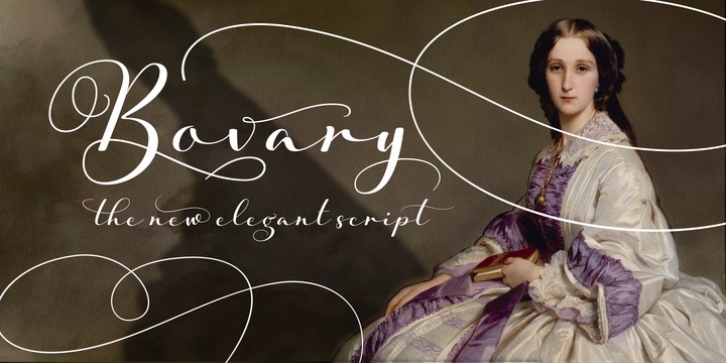
Publisher: Eurotypo
Bovary was designed by Carine de Wandeleer and published by Eurotypo. Bovary contains 1 style.
Bovary is an elegant, stylized and expressive script font inspired by those beautiful calligraphies of yesteryear, but in a modern point of view. Bovary is full of personality! When I designed it, I started from the Clauques Script. Therefore, Bovary can be perfectly combined with Clauques Sans.
Bovary includes almost 900 glyphs with many stylistic variations, swashes, ending and initial forms, catchwords and ligatures for both uppercase and lowercase, assuring almost infinite combination possibilities. In addition, the font includes a set of very useful ornaments to combine and give an ornamental aspect to the calligraphic text.
All our fonts are carefully controlled and tested in both aspects: readability and technical aspects. We deal with the kerning pairs, optimization of hinting information to avoid pixel grid, and the precise programming of the OpenType features; as well as drawing smooth curves points and the final touch of each glyph.
This family font is perfect for logos, magazines and book covers, fashion, headlines and short phrases, cards, posters, websites, and packaging. Bovary is the brand new modern script, designed by Carine de Wandeleer and published by Eurotypo.